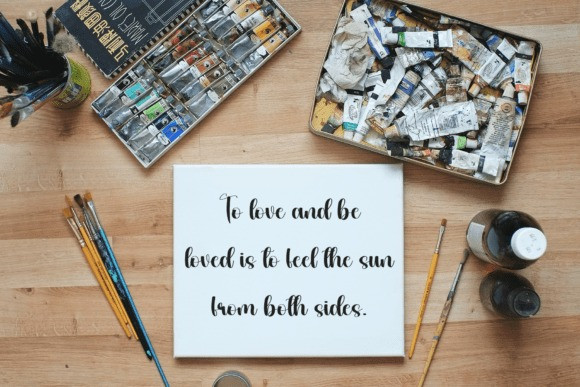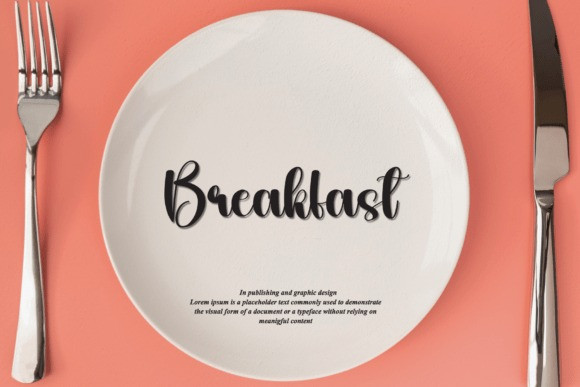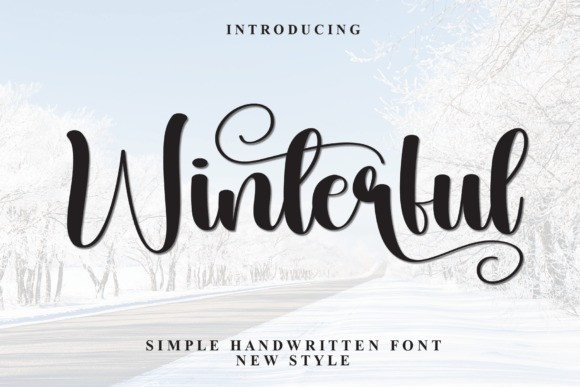
Winterful Script Font
Winterful Script Font special creative products for you, our products will give you an extraordinary experience.the latest style letters are perfect for wall displays, wedding invitations, social media post logos,advertisements, product packaging, product designs, labels, photography , watermarks, invitations, stationery,and any project that requires taste handwriting.